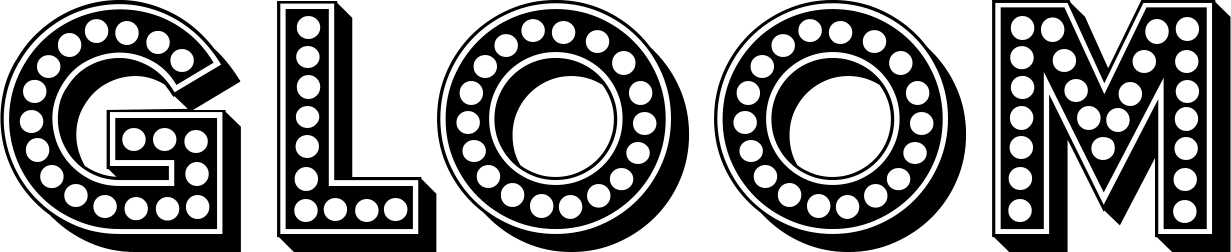
Gloom Font
Are you ready for a new special font to stick out your graphic design? Gloom is a retro font with a dotted design that can play an influential role in engaging readers to check out your content. This Broadway font with a classical and distinctive design can be a perfect choice to use in headers, newspapers, branding, websites, and so on. Try it now and enjoy!